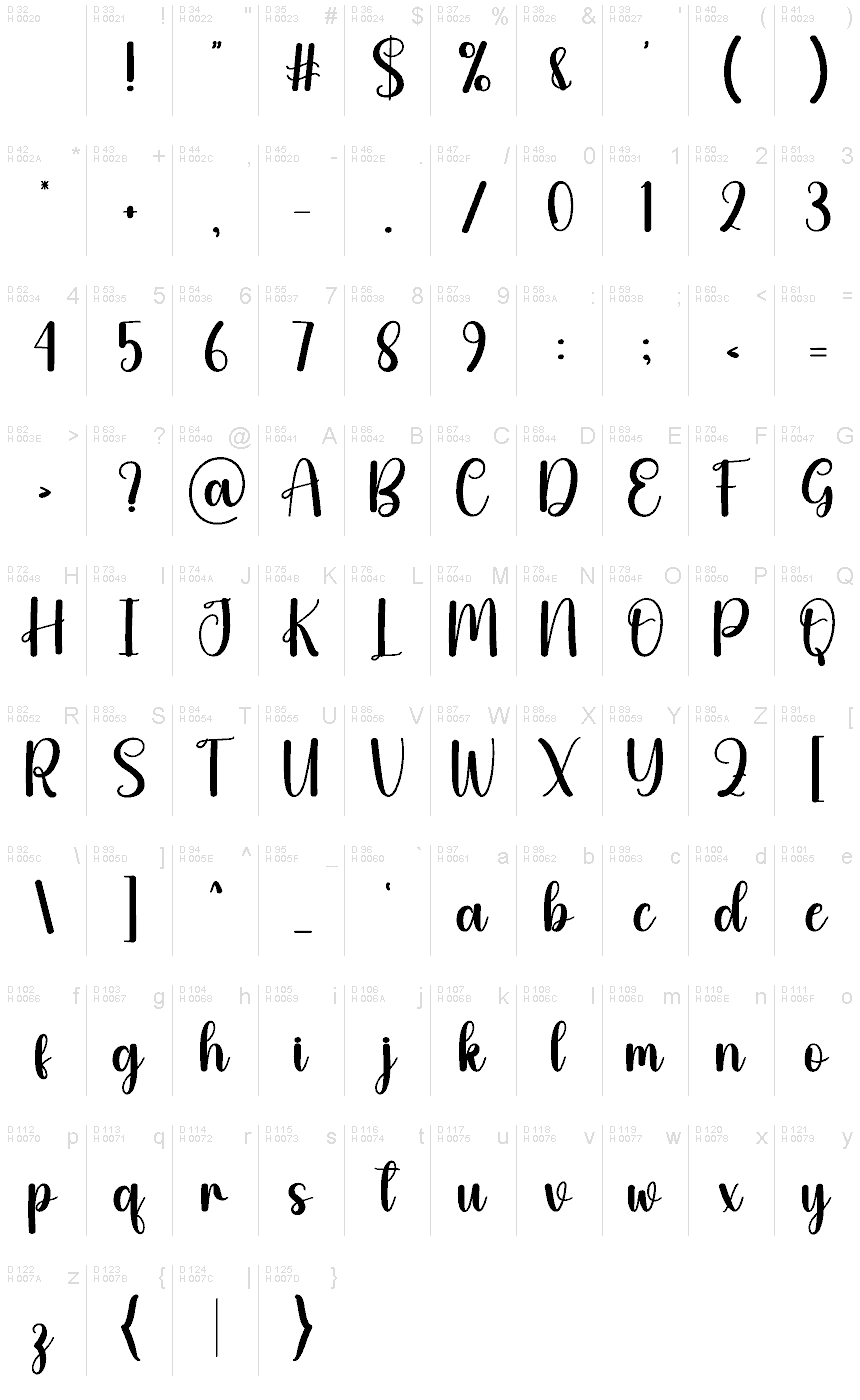
Shepherd
Shepherd font by Scratchones is a free handwritten font with expressive and elegant features. It has a smooth flow with each letter clearly connecting to the ones in its surroundings. The modern script style translates into a welcoming personality that supports any design style and every business category. Its simple and distinct appearance offer variety where simplicity is an asset.
This font is suitable for branding, headlines, flyers, posters, invitations (wedding invitations especially), magazines, book covers, fashion items, packaging designs, social media posts and advertisements.